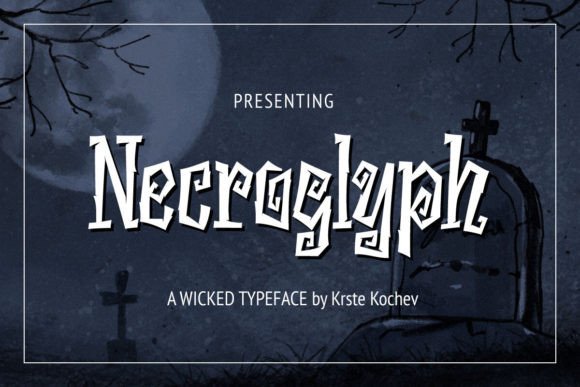
In the realm of typography, where letters dance upon the page, there exists a font of unparalleled darkness and intrigue, a font that will ensnare your senses and transport you to a realm of shadows and spirits: the Necroglyph Font. A creation of the masterful krstekochev, Necroglyph is not merely a font; it is a conduit to the unseen, a whisper from beyond the veil.
With its eerie, twisted letterforms that writhe like ghostly apparitions, Necroglyph captures the essence of the macabre, the supernatural, and the downright spooky. Each glyph seems to bear the weight of untold stories, whispered secrets, and lingering spirits. It is a font that demands attention, that draws the eye and refuses to let go.
Unleash the dark and mystic power of Necroglyph to add a touch of the paranormal to your designs and set the stage for a truly eerie and unforgettable Halloween experience. Let your words dance in the moonlight, imbued with an otherworldly aura that will send shivers down the spines of your readers.
Whether you're a writer crafting a chilling tale of horror, a graphic designer conjuring up spine-chilling visuals, or simply a lover of the occult, Necroglyph is the font you've been searching for. Embrace its dark allure and let your creativity soar into the realm of the supernatural.
With Necroglyph, you'll possess the power to:
* Cast spells with words, weaving tales that will haunt your readers' dreams.
* Conjure chilling invitations for haunted house parties that will leave guests trembling with anticipation.
* Design spine-tingling signage for Halloween events that will send shivers down the spines of passersby.
* Create otherworldly flyers and posters that will draw crowds of curious onlookers.
* Unleash your inner ghoul and let your imagination run wild.
Necroglyph is more than just a font; it is a gateway to a realm of darkness and mystery, a font that will breathe life into your words and make your designs truly unforgettable. Embrace its power and let your creativity soar into the realm of the supernatural.